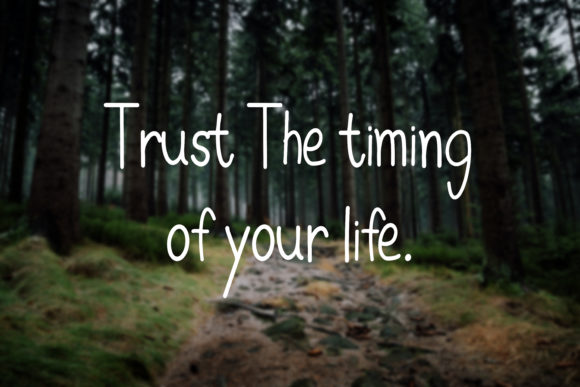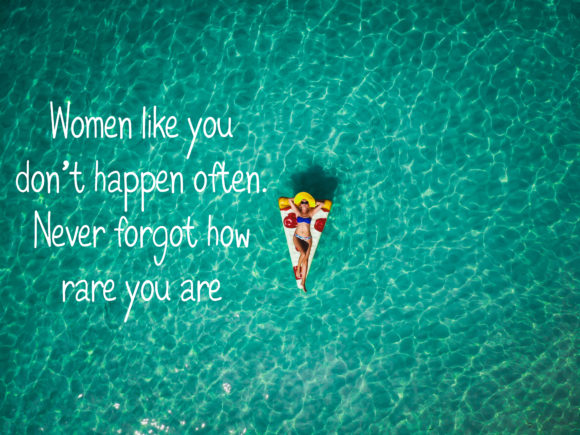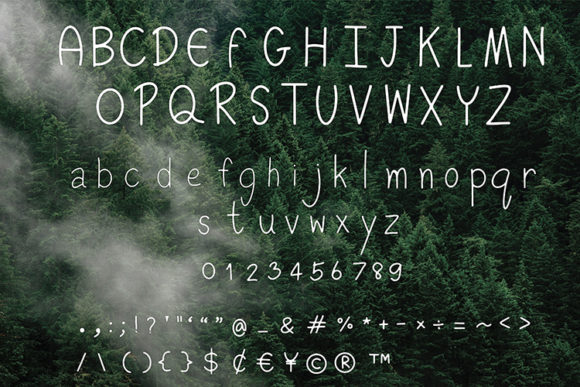
Easy Going Font
About Easy Going Font
Easy Going is a simple and neat lettered handwritten font. Get inspired by its versatile style and add it to each of your creative contexts!